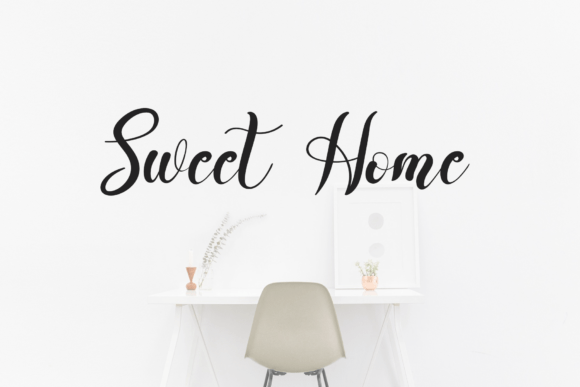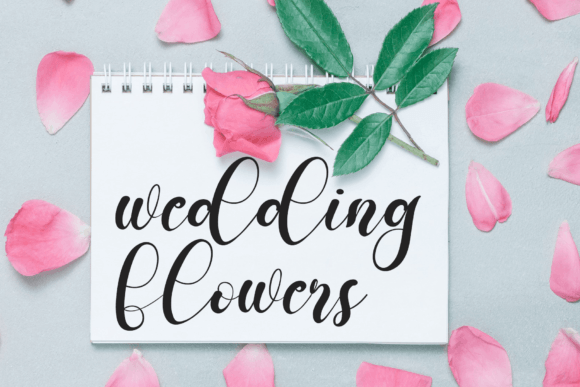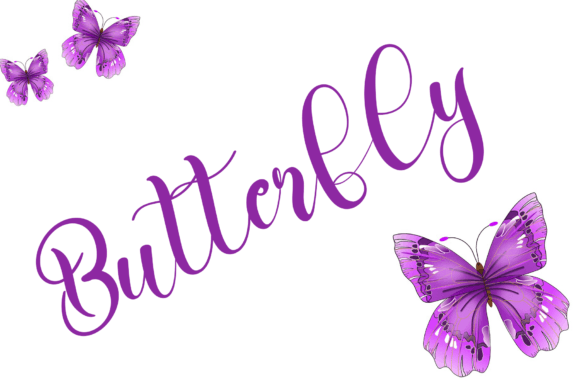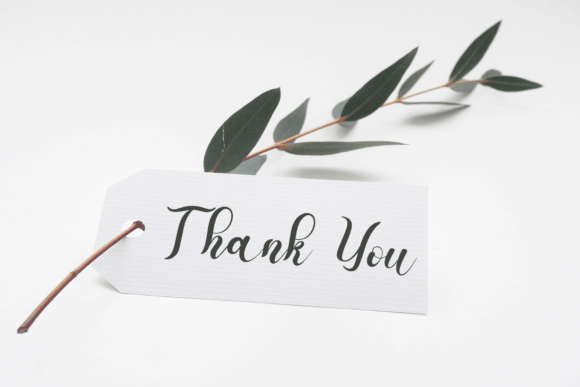
The Boho Font: Elevate Your Designs with Timeless Elegance
I’ll never forget the design project that led me to discover the Boho font. I was working on a branding project for a boutique client, and I was struggling to find the perfect font that exuded both sophistication and playfulness. The client wanted a font that would make their brand stand out, but still convey a sense of classic elegance. After hours of scouring font libraries and testing various options, I stumbled upon Boho – and it was love at first sight! 💕
- ✅ Balanced and varied: Boho’s handwritten style has a beautiful flow, making it perfect for a wide range of design projects.
- ✅ Contemporary atmosphere: This font effortlessly blends modern flair with classic calligraphy inspiration.
- ✅ Impeccable form: Boho’s attention to detail and precise lettering make it a joy to work with.
- ⚠️ Limited use in very small sizes: Boho’s intricate details can get lost when used in extremely small font sizes.
- ⚠️ Some characters may require manual kerning: While the font is generally well-spaced, some character combinations might require a bit of manual adjustment for optimal results.
The Story Behind Boho: Designer Inspiration
Boho was designed by a team of typographers who sought to create a font that would blend the elegance of classic calligraphy with the playfulness of modern handwriting. Inspired by vintage manuscripts and contemporary art, Boho is the result of meticulous craftsmanship and attention to detail.
| Font Name | Boho Font |
| Author | Preketek texs |
Q: What makes Boho a great choice for branding projects?
A: Boho’s unique blend of classic elegance and modern playfulness makes it an excellent choice for branding projects that require a distinctive and memorable visual identity.
Q: Is Boho suitable for body text?
A: While Boho is a beautiful font, it’s best suited for headings and titles. For body text, you may want to choose a font with better readability.